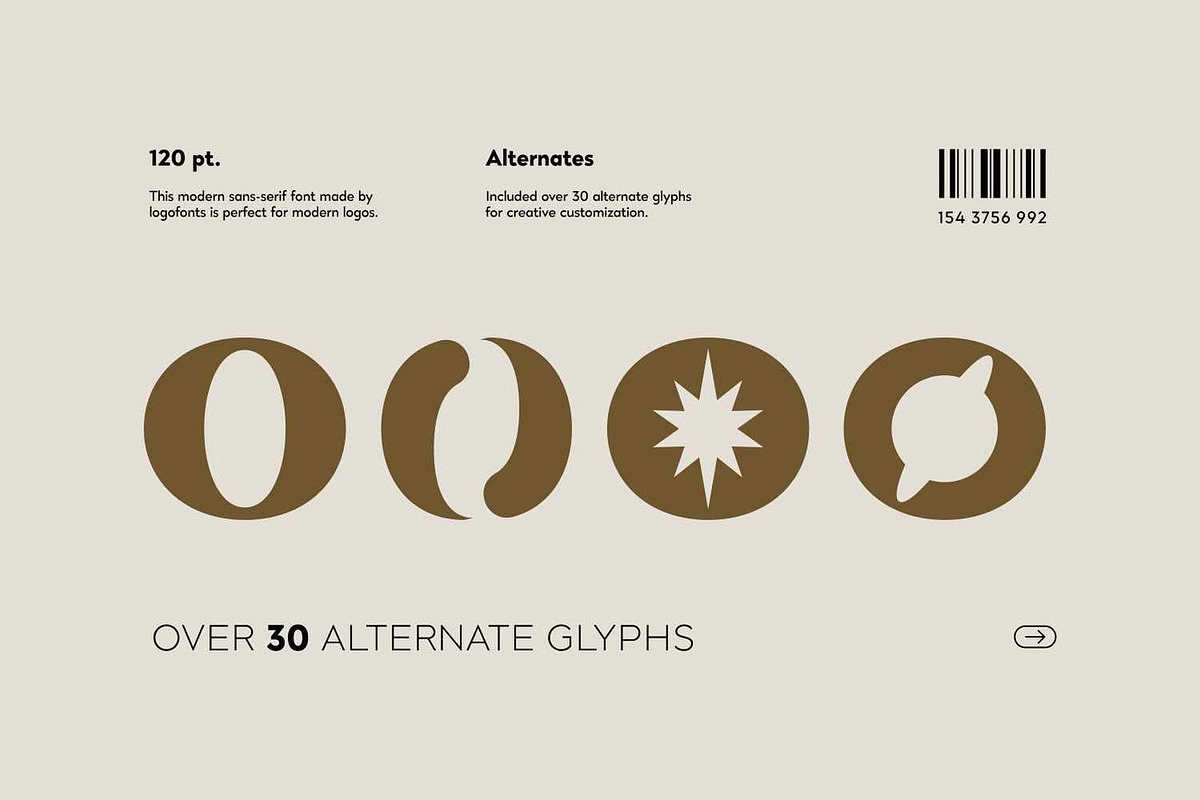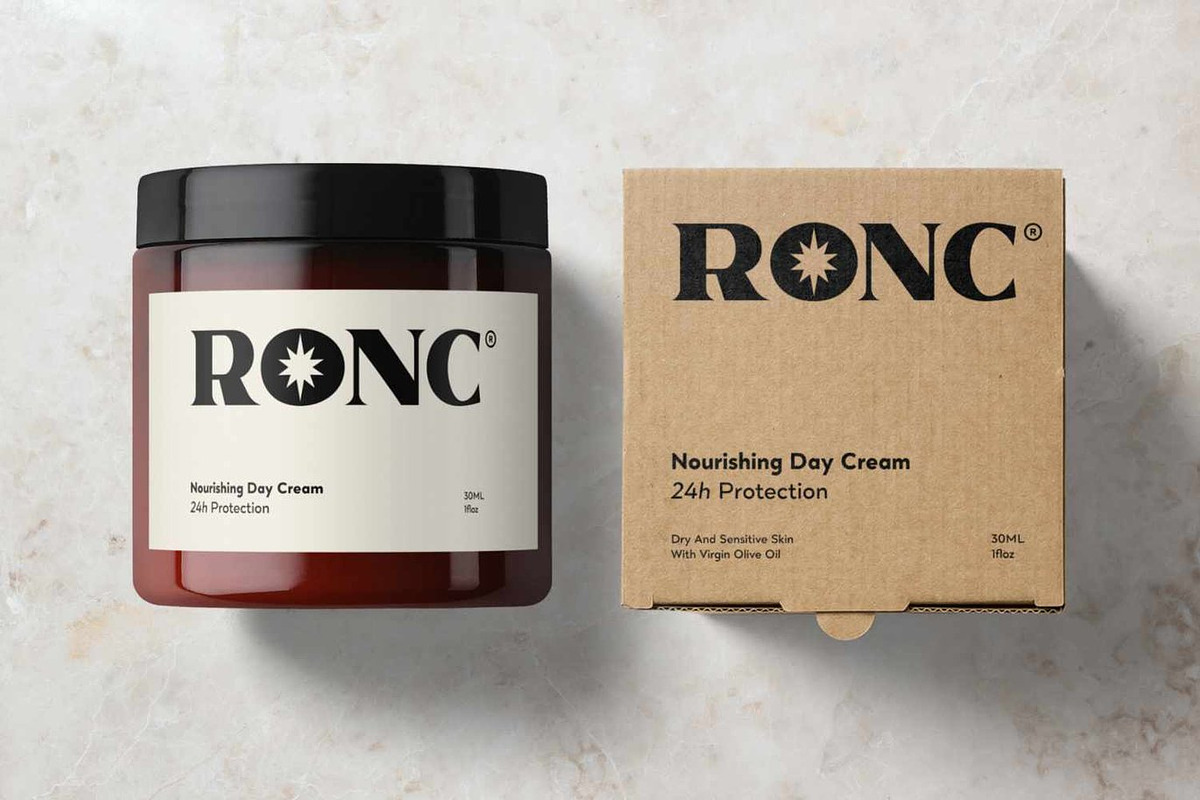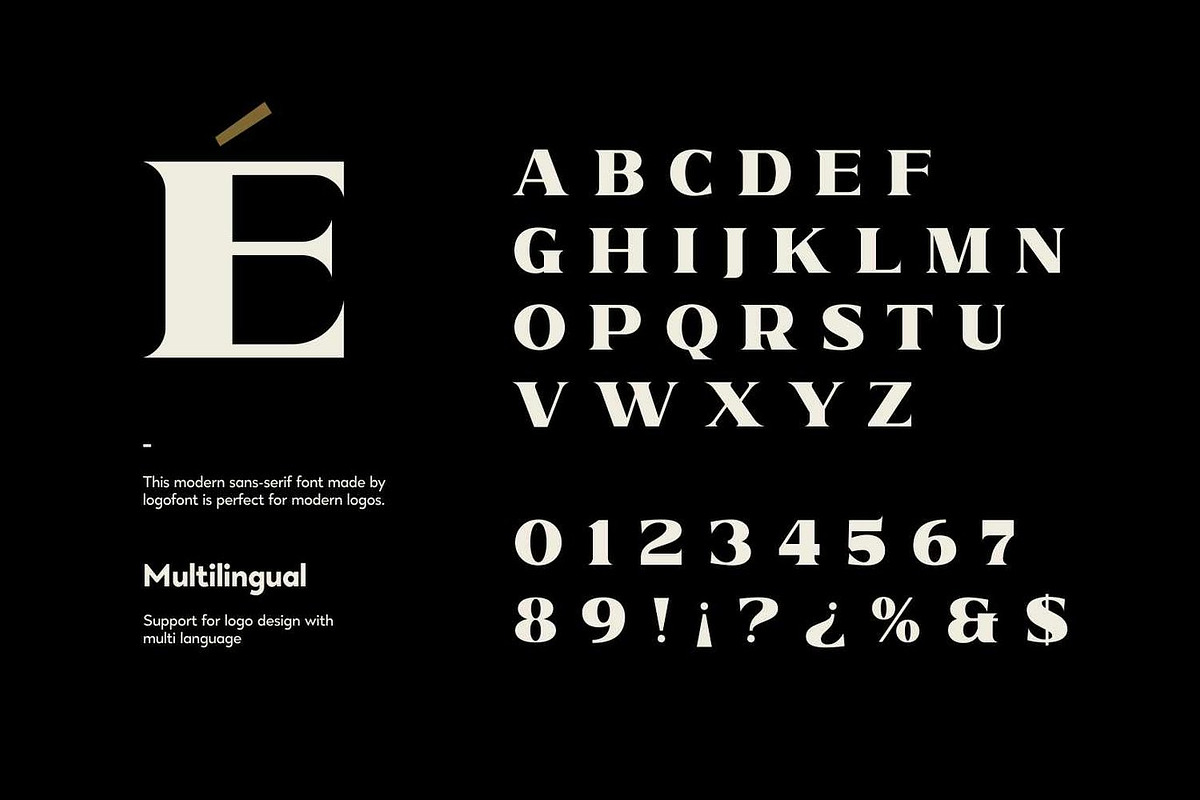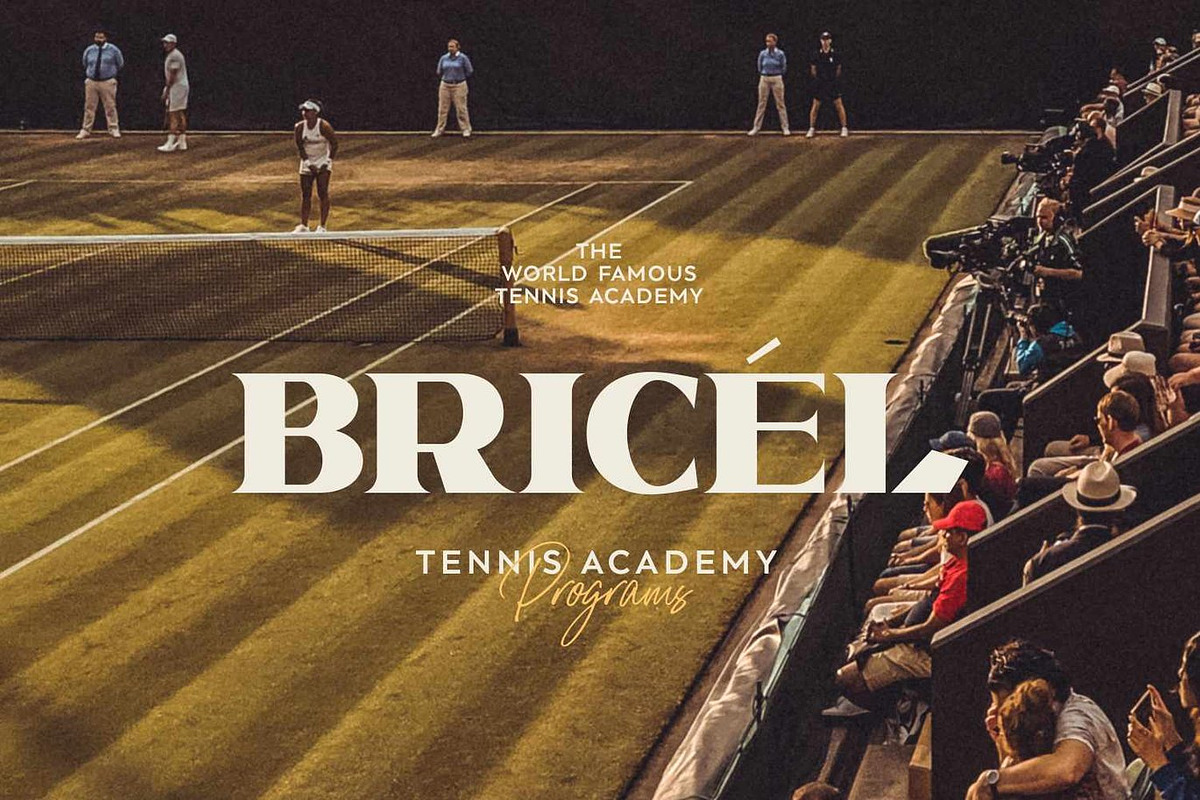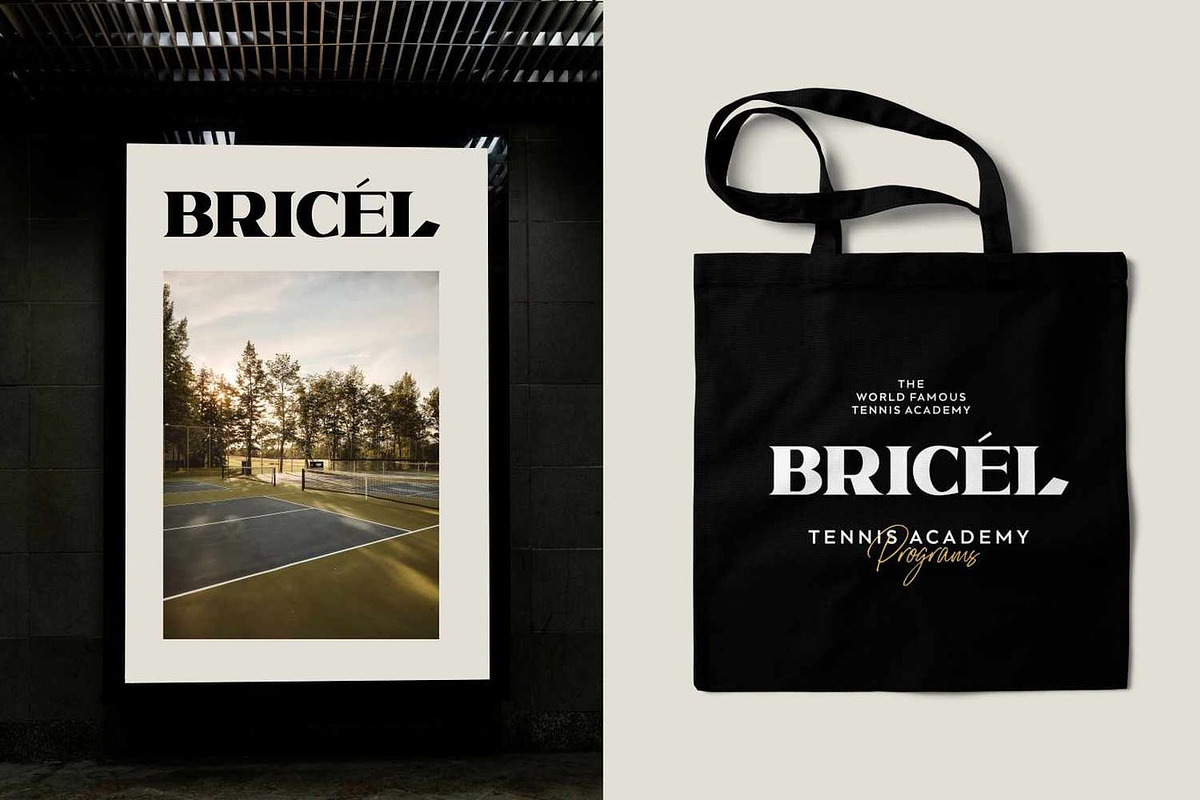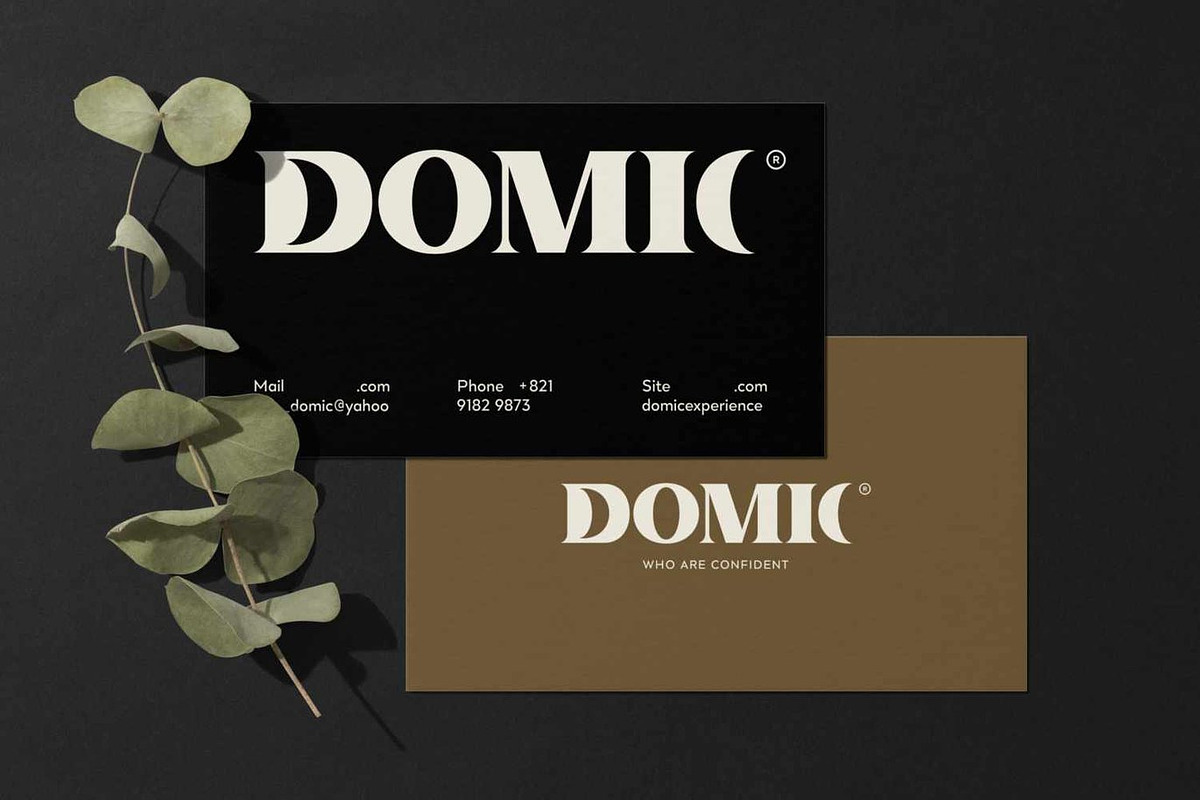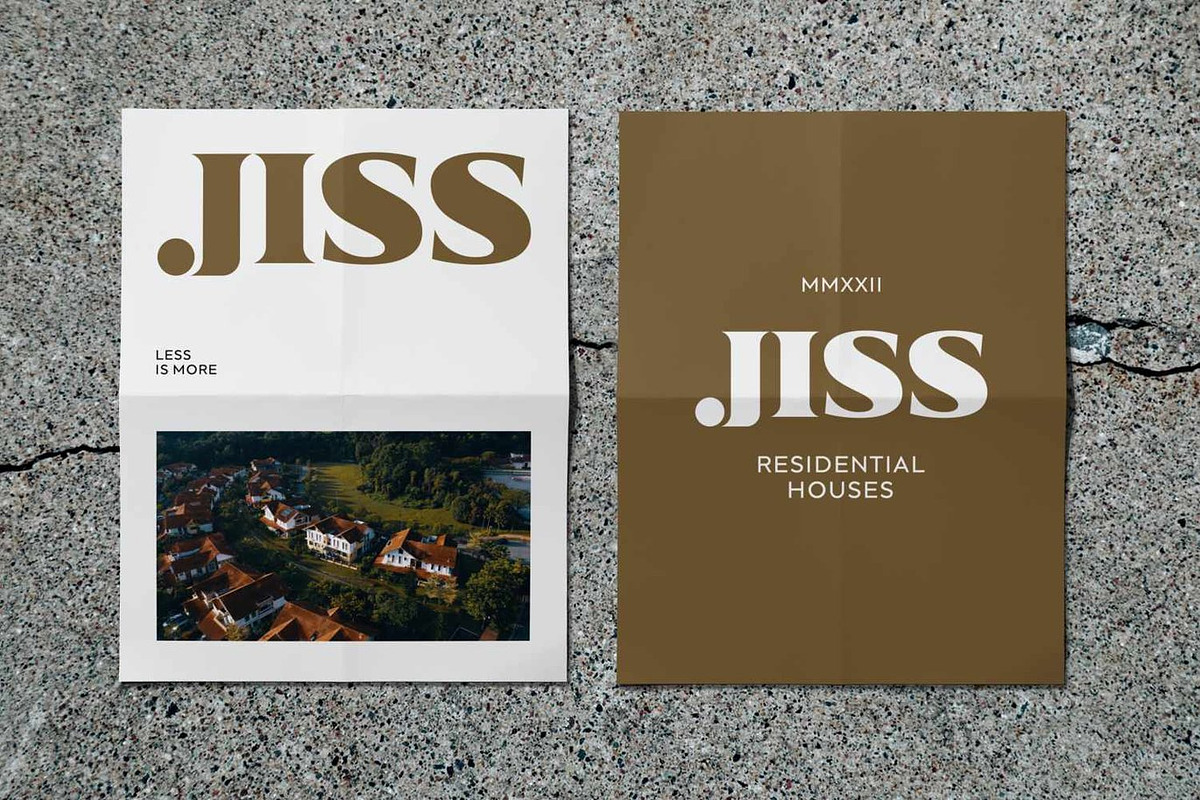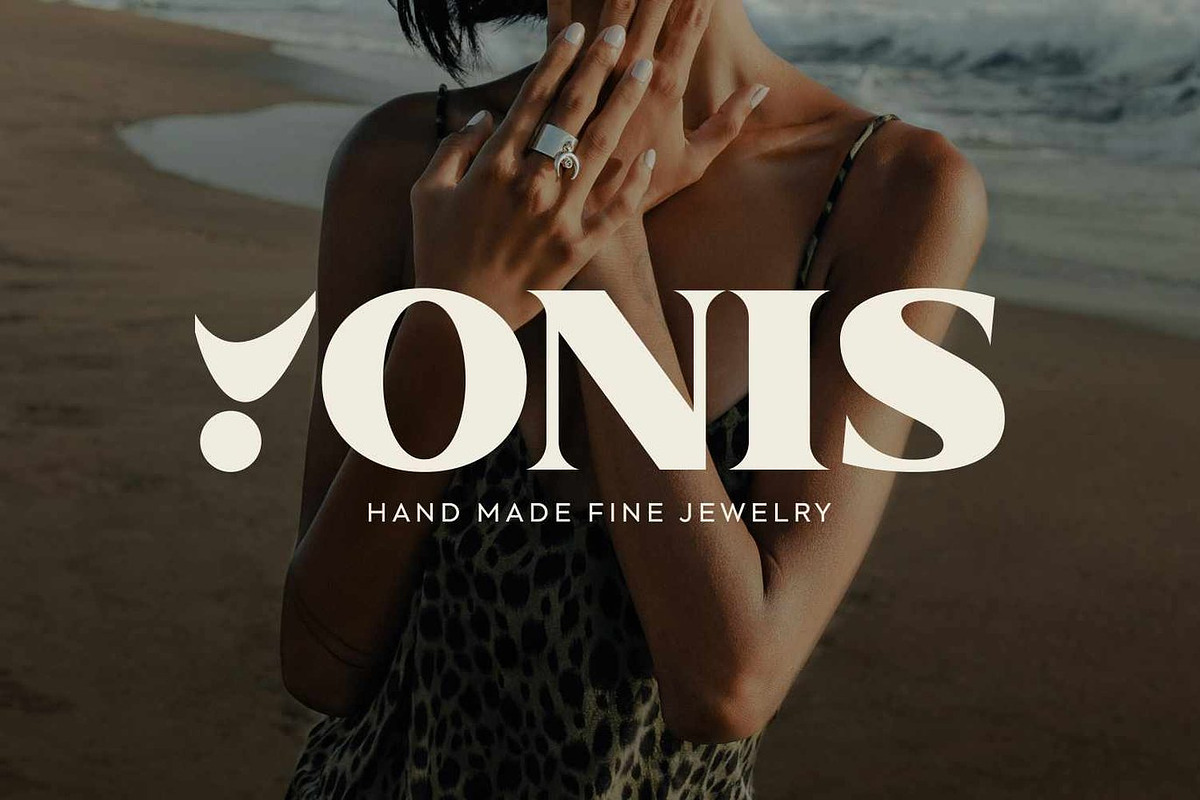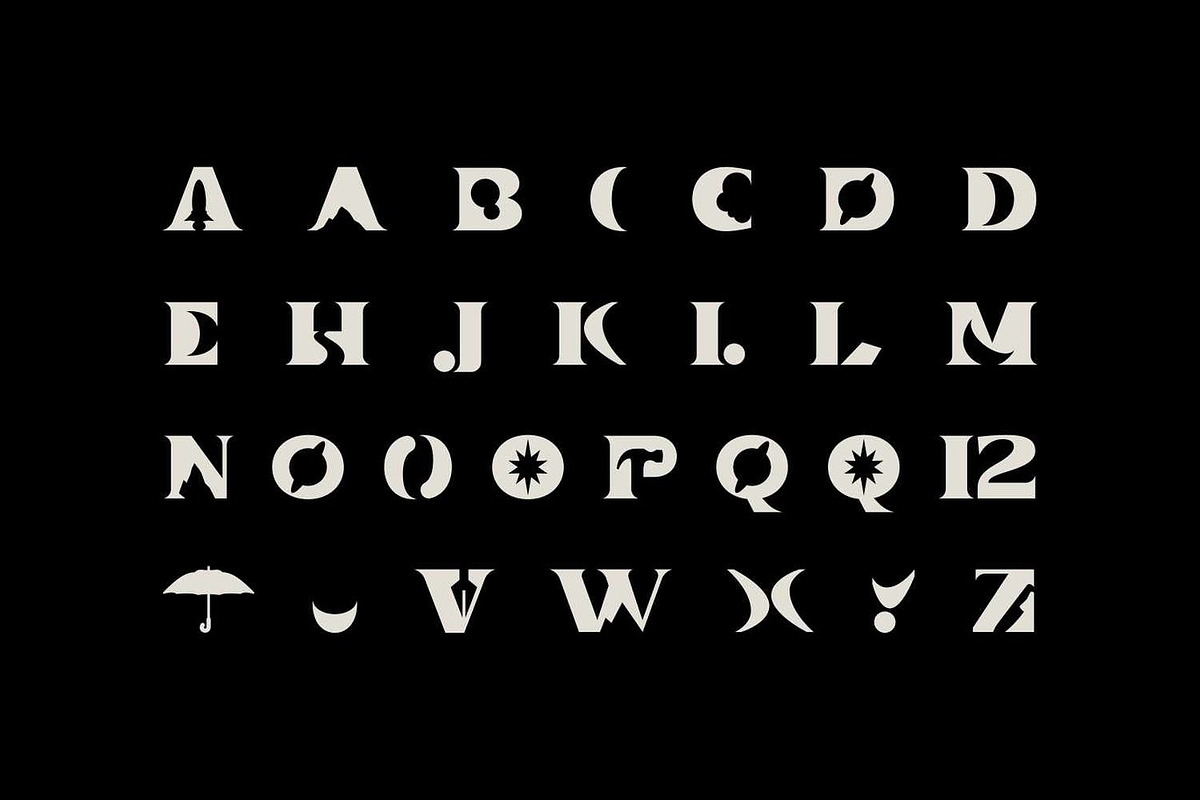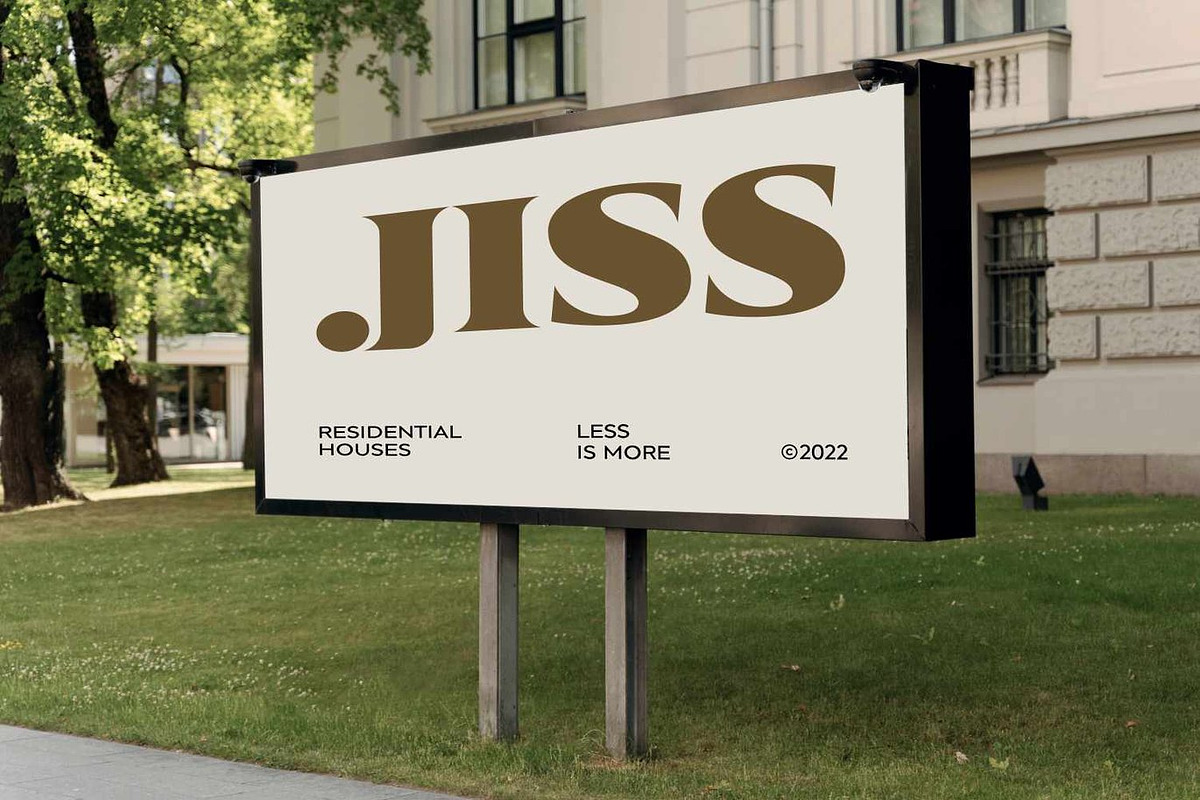
Stencil - Logo Serif Font
Stencil is a modern serif typeface that reimagines the utilitarian stencil aesthetic with contemporary refinement and typographic elegance. Strong letterforms punctuated by strategic breaks create visual rhythm and structural clarity while maintaining exceptional readability. This distinctive approach combines industrial heritage with polished sophistication, making Stencil equally powerful for commanding headlines and refined branding.
Where it excels:
Product logos and brand identity: Fashion labels, lifestyle brands, creative studios, and contemporary businesses seeking distinctive wordmarks that balance edge with elegance and stand apart from conventional typography.
Poster and headline design: Concert posters, event graphics, editorial spreads, and advertising campaigns where stencil character adds energy while structured letterforms ensure clarity at any scale.
Packaging and labels: Premium spirits, craft products, artisanal goods, and specialty packaging where stencil styling communicates authenticity and craftsmanship with modern sophistication.
Editorial applications: Magazine mastheads, article headlines, section dividers, and book covers where distinctive serif character creates visual interest without compromising legibility.
Web and digital design: Website headers, navigation systems, app interfaces, and responsive layouts where Stencil's structure translates cleanly across screen sizes and resolutions.
Standout features:
Uppercase and lowercase with characteristic stencil breaks thoughtfully positioned to preserve letterform recognition while adding distinctive industrial character.
Symbols and punctuation designed with matching stencil aesthetic, ensuring visual consistency across complex typographic compositions and branded applications.
Numerals crafted with structural clarity perfect for dates, pricing, wayfinding, and technical applications where stencil styling adds personality without sacrificing function.
OpenType features including stylistic alternates that shift between subtle stencil breaks and more pronounced industrial expressions, enabling flexible brand voices.
Ligatures that maintain natural letter connections while respecting stencil logic, adding refinement to word combinations in headlines and logos.
Multilingual support ensuring Stencil's contemporary industrial voice translates reliably across languages, regions, and international brand ecosystems.
Choose Stencil when your project demands serif sophistication with industrial edge. Perfect for product logos, posters, headlines, web interfaces, magazines, packaging, and stationery, this modern serif delivers distinctive character with structural clarity and contemporary confidence.